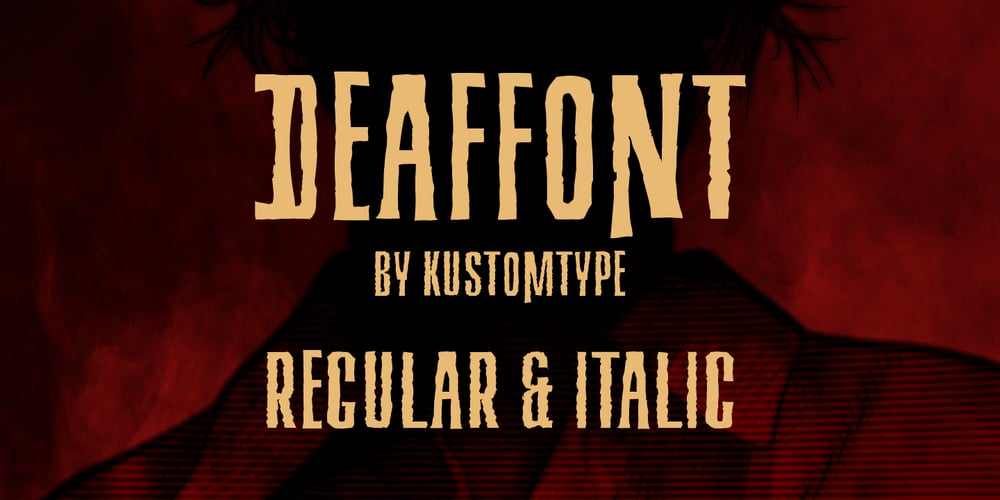
Deaffont Font Family was designed by Coert De Decker and published by Kustomtype. Deaffont contains 2 styles and family package options. Deaffont is an experimental font specially designed for a music video and album concept by the metal band Deafcon. The font is entirely hand-drawn and digitized. It means that Deaffont is a very user-friendly, complete and modern font, which you can use for all your graphic applications. Deaffont is a subculture font that blows you away, ideal for an eye-catching design. Trust me, Deaffont rocks!